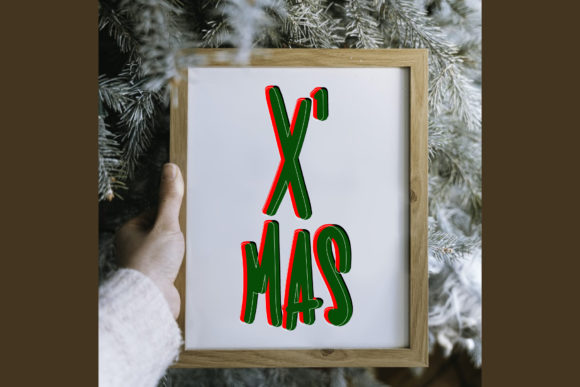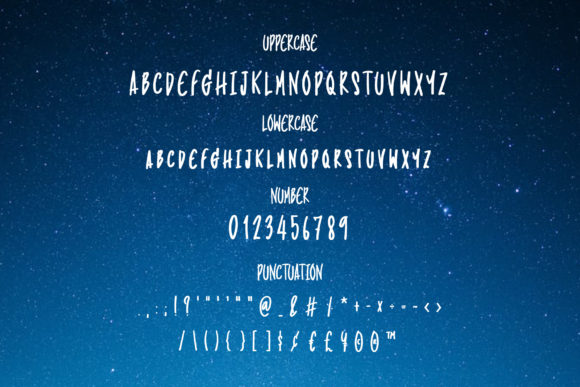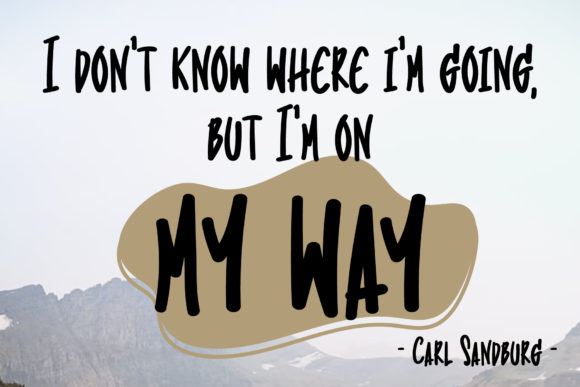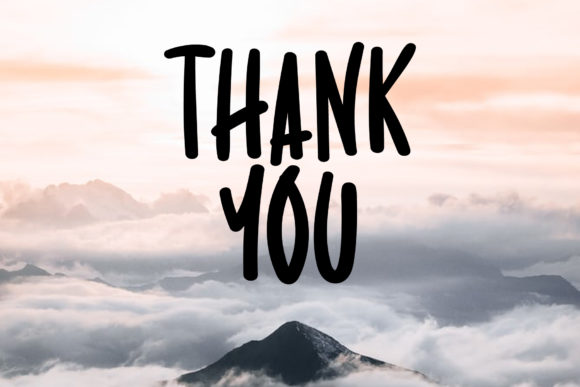
The Ultimate Guide to Black Vacuum Font: A Fun and Simple Handwritten Delight
An Honest Review of Black Vacuum Font
As a designer, I’m always on the lookout for fonts that can help me create stunning visuals with ease. Here’s my take on what makes Black Vacuum font special:
- ✨ Brushed and relaxed vibe: Black Vacuum font has a lovely, laid-back feel to it, making it perfect for casual designs and creative projects.
- ✅ Easy to read: The font’s clean and simple design ensures that your text remains legible, even at smaller sizes.
- 💕 Versatile: Black Vacuum font can be used for a wide range of projects, from crafting and DIY tutorials to social media graphics and more.
Of course, no font is perfect, and Black Vacuum has a few quirks to keep in mind:
- 🤔 Limited formal applications: Due to its casual nature, Black Vacuum font might not be the best fit for formal or professional projects.
- ⚠️ Some letter variations: While the font has a great range of characters, some letters may not have as many variations as you’d like.
The Backstory Behind Black Vacuum Font
While the origins of Black Vacuum font remain a mystery, it’s clear that the designer aimed to create a fun, simple, and versatile font for crafty folks and designers. Imagine a creative soul, sipping coffee and experimenting with brushstrokes and letterforms, ultimately crafting a font that’s both playful and elegant.
| Q: What type of projects is Black Vacuum font best suited for? | A: Black Vacuum font is perfect for casual designs, crafting and DIY tutorials, social media graphics, and more. |
| Q: Does Black Vacuum font have any special features or alternates? | A: Yes, Black Vacuum font comes with a range of OpenType features, glyphs, and stylistic alternates to help you add some extra flair to your text. |